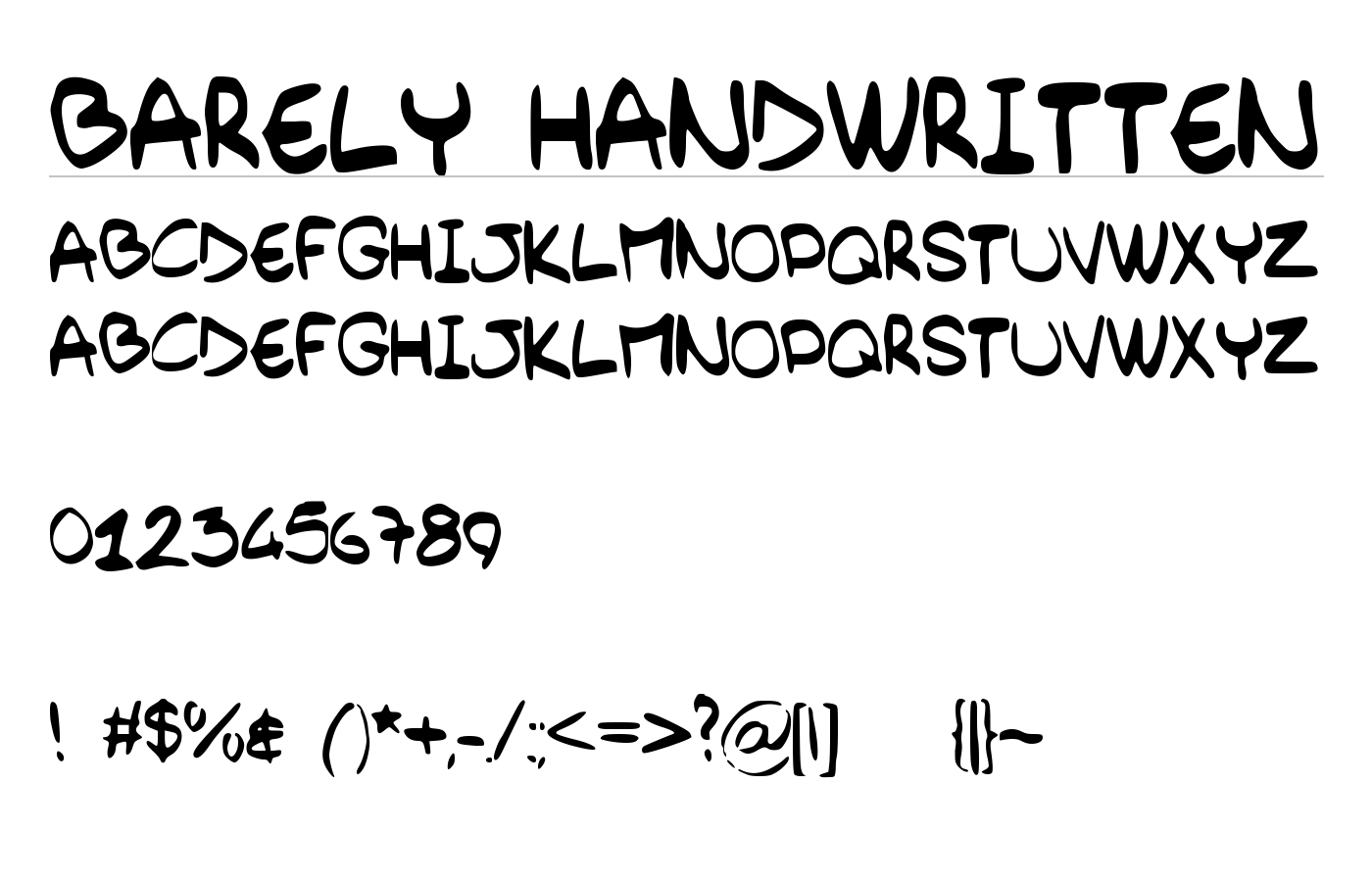
Barely_Handwritten is a playful, casual handwritten sans serif font with irregular, rounded strokes that give it a friendly and approachable feel. Its bold weight and slightly condensed letterforms make it eye-catching and suitable for informal branding, children's projects, and fun editorial designs. This font works well for headlines, logos, and creative packaging where a personal, lively touch is desired.
Barely_Handwritten Font
About Barely_Handwritten Font